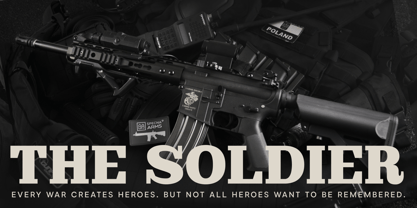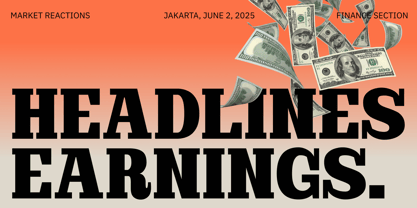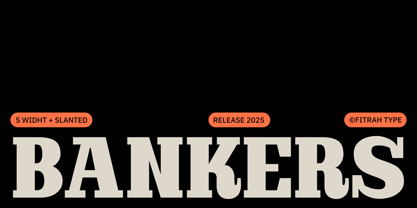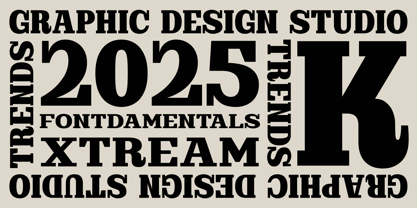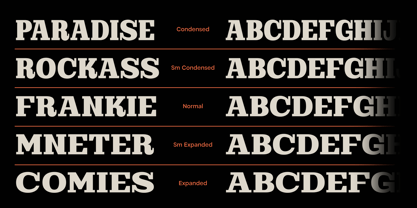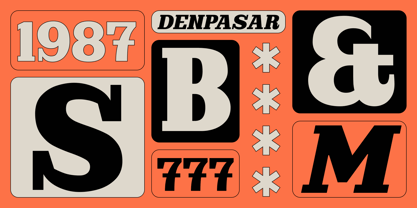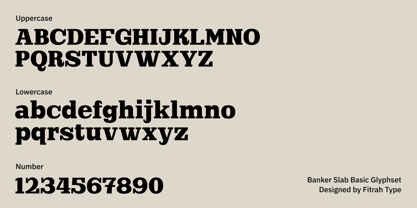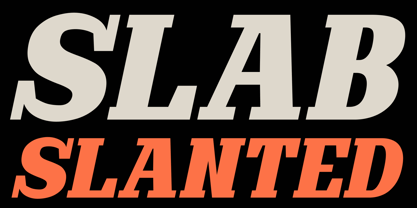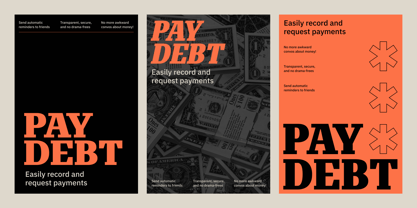
Bankers Slab
by Fitrah Type
The Bankers Slab Font Family was designed by Moch Fitrah Hidayat and published by Fitrah Type. Bankers Slab contains 10 styles and family package options. More about this family
Bankers Slab is a bold, structured slab serif font family designed for impact, versatility, and timeless appeal. Inspired by classic financial typography with a modern twist, Bankers Slab offers a wide range of widths — from Condensed to Expanded — as well as Slanted styles for dynamic compositions.
Whether you're working on editorial layouts, branding systems, signage, packaging, or powerful typographic statements, Bankers Slab provides the tools to create bold and confident designs. Its strong vertical emphasis and all-caps letterforms make it ideal for headlines, logos, and display use.
Key Features:
• Slab serif font with industrial elegance
• 5 widths: Condensed, Semi-Condensed, Regular, Semi-Expanded, Expanded
• Slanted styles included for additional emphasis
• All caps font for striking headlines and logos
• Excellent readability across print and digital
• Great for branding, posters, magazines, packaging, and more
Bankers Slab combines precision and power — built to give your designs authority and clarity with typographic consistency.
Designers: Moch Fitrah Hidayat
Foundry: Fitrah Type